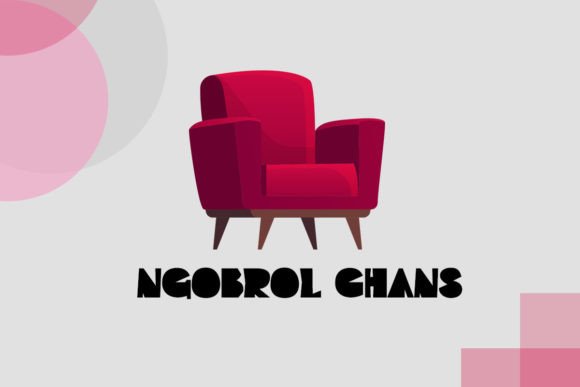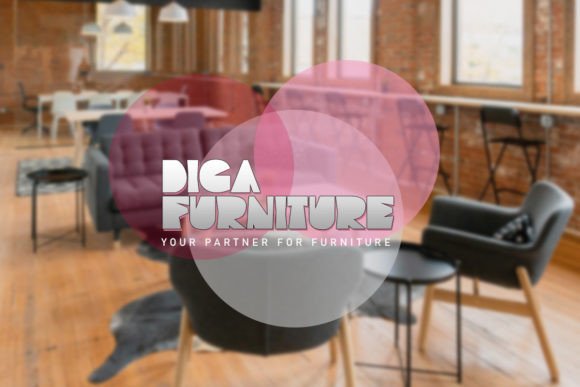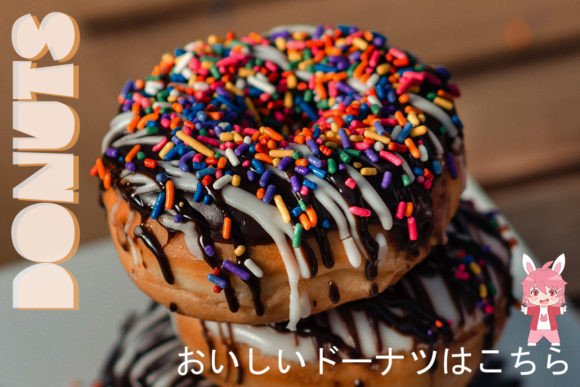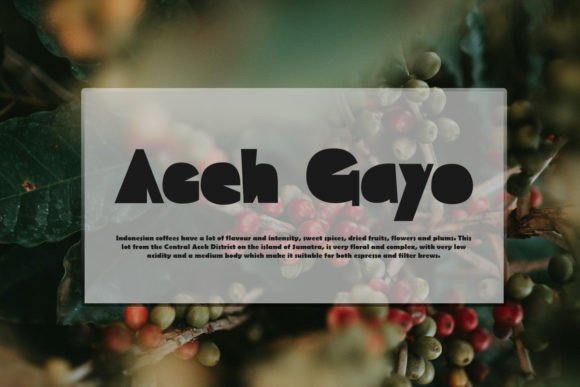
Introduction to Draw and Talks Font
Draw And Talks is a fun and cool display font.
Whether you use it for cartoon-related designs, childrenโs games, or just any creation that requires a playful touch, this font is the perfect choice for your designs .